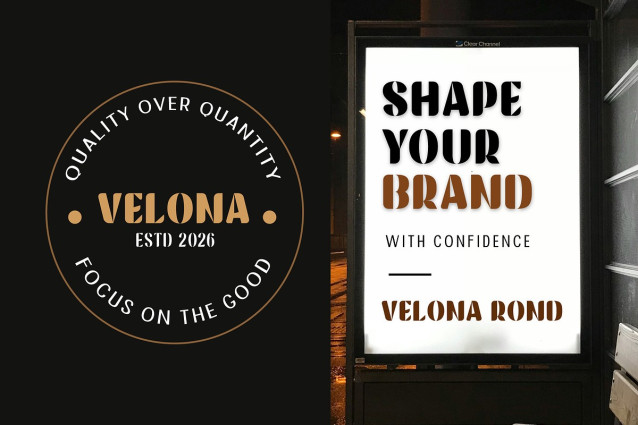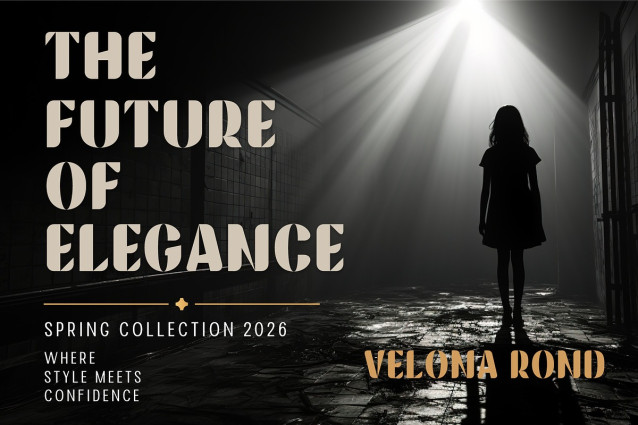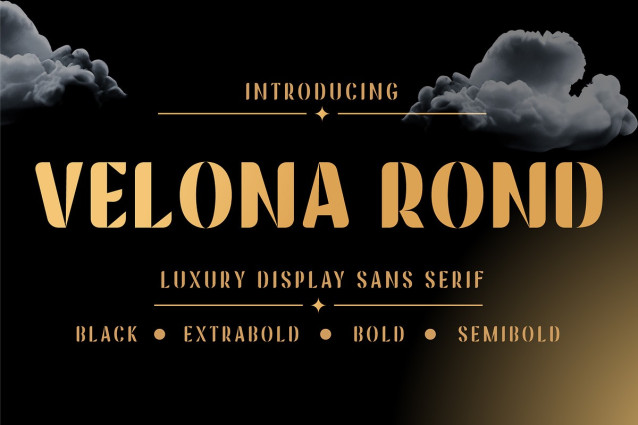
Velona Rond Font
Velona Rond Font is a luxury display sans serif font that blends Art Deco sophistication with modern geometric elegance. Featuring bold letterforms, high contrast curves, and distinctive decorative cuts, Velona Rond creates a powerful visual presence while maintaining refined aesthetics.
Designed for premium branding, luxury packaging, fashion editorials, high-end logos, beauty products, hotel identities, invitations, posters, and social media campaigns, Velona Rond delivers a timeless yet contemporary character that instantly elevates any design.
Its unique rounded structure and stylish negative-space details provide a glamorous and memorable appearance, making it ideal for projects that demand elegance, exclusivity, and strong brand recognition.
Available in multiple weights ranging from Semibold to Black, Velona Rond offers versatility for both impactful headlines and sophisticated visual identities.